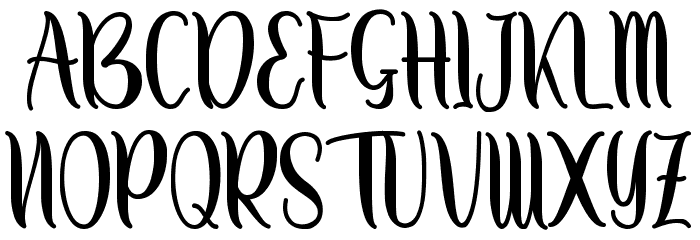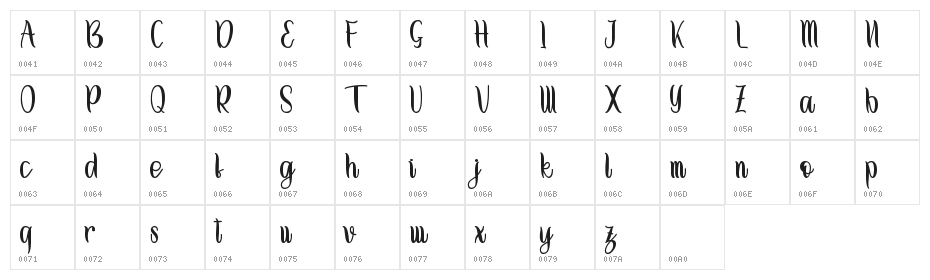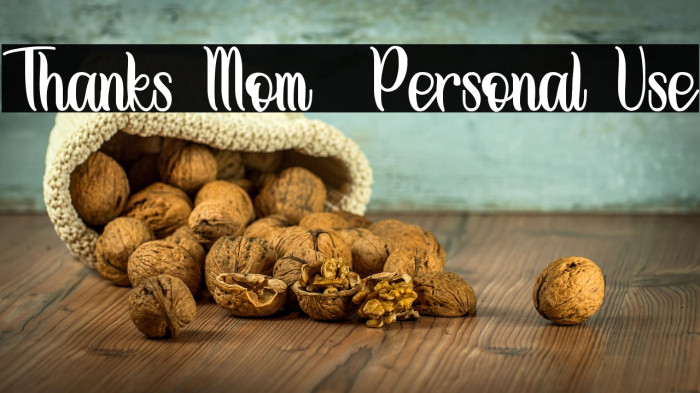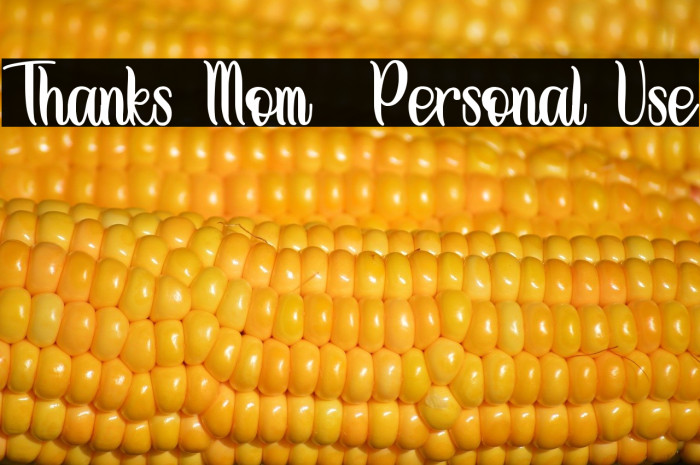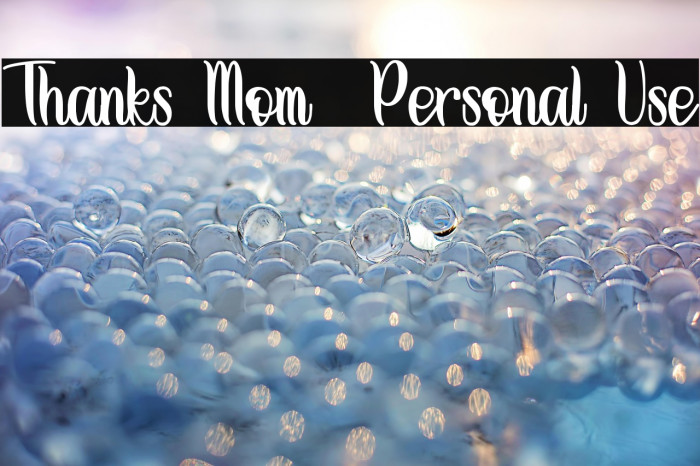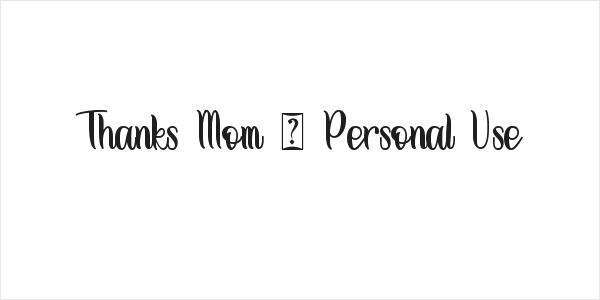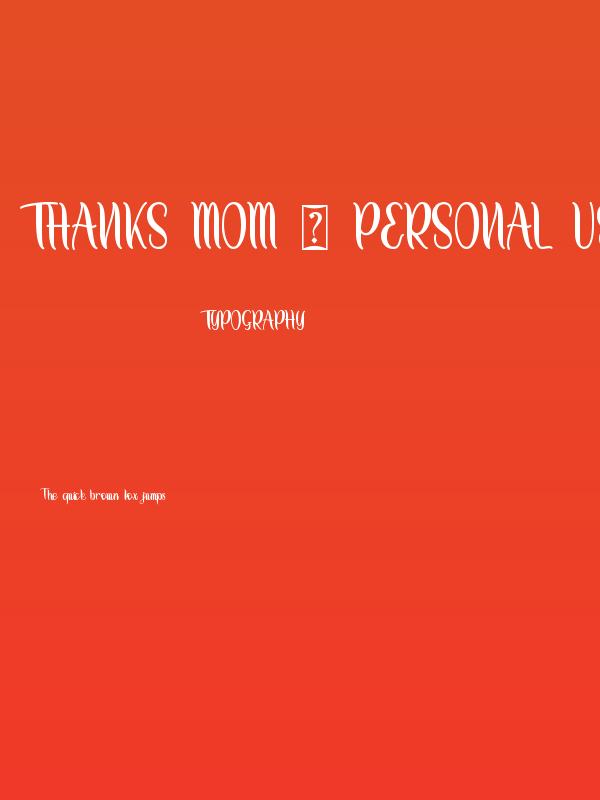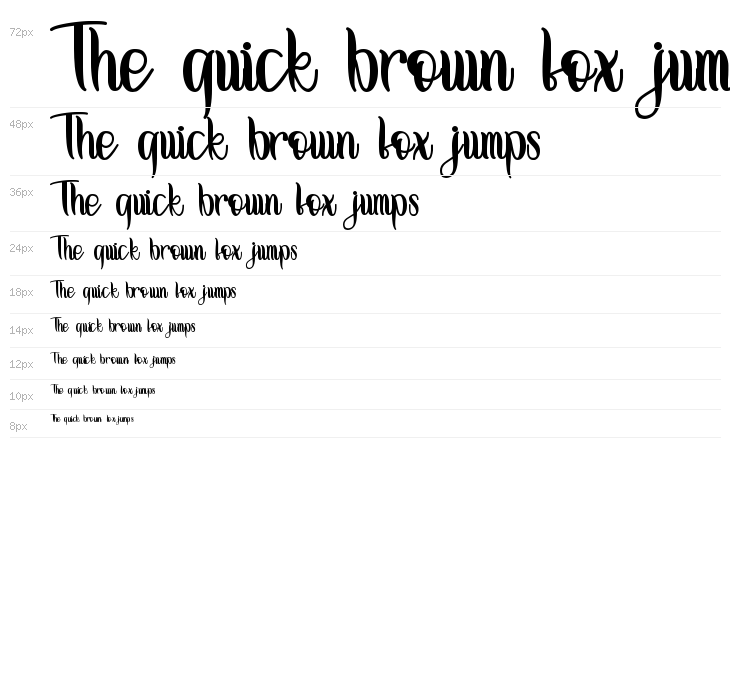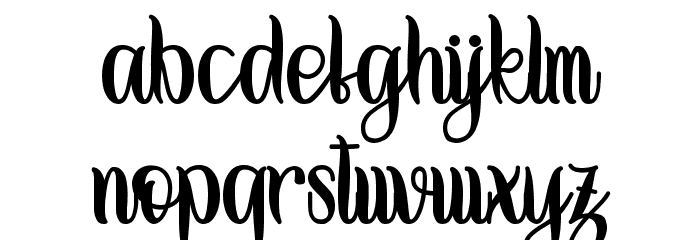
Thanks Mom - Personal Use Font
Thanks Mom - Personal Use Description
This font features a playful and whimsical script style with a hand-drawn appearance. The letters are characterized by their flowing, cursive forms and varying stroke widths, creating a dynamic and lively look. The uppercase letters are bold and slightly elongated, while the lowercase letters maintain a consistent flow with rounded edges and smooth curves. The font's unique style is accentuated by its decorative flair, making it suitable for creative and informal applications. The overall design exudes a sense of warmth and friendliness, ideal for personal and heartfelt messages.
| Proposed Projects | Greeting cards, invitations, personal notes, and creative branding projects. |